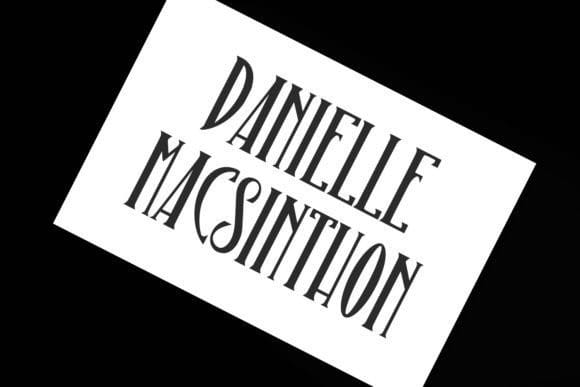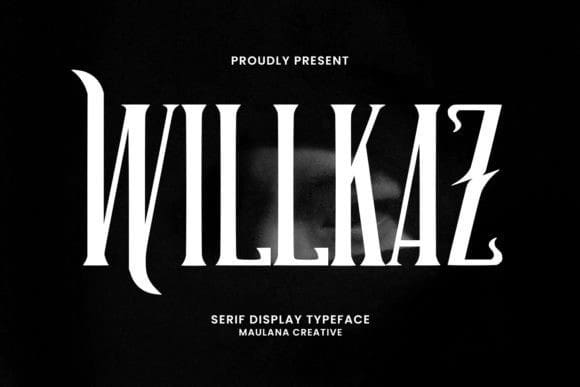
Willkaz Font
Willkaz Font – a stylish serif display font, captivates with its unique design, blending modern aesthetics with timeless sophistication. The distinctive serifs and graceful letterforms exude a sense of refinement, making it an ideal choice for projects that demand a touch of sophistication and contemporary elegance.